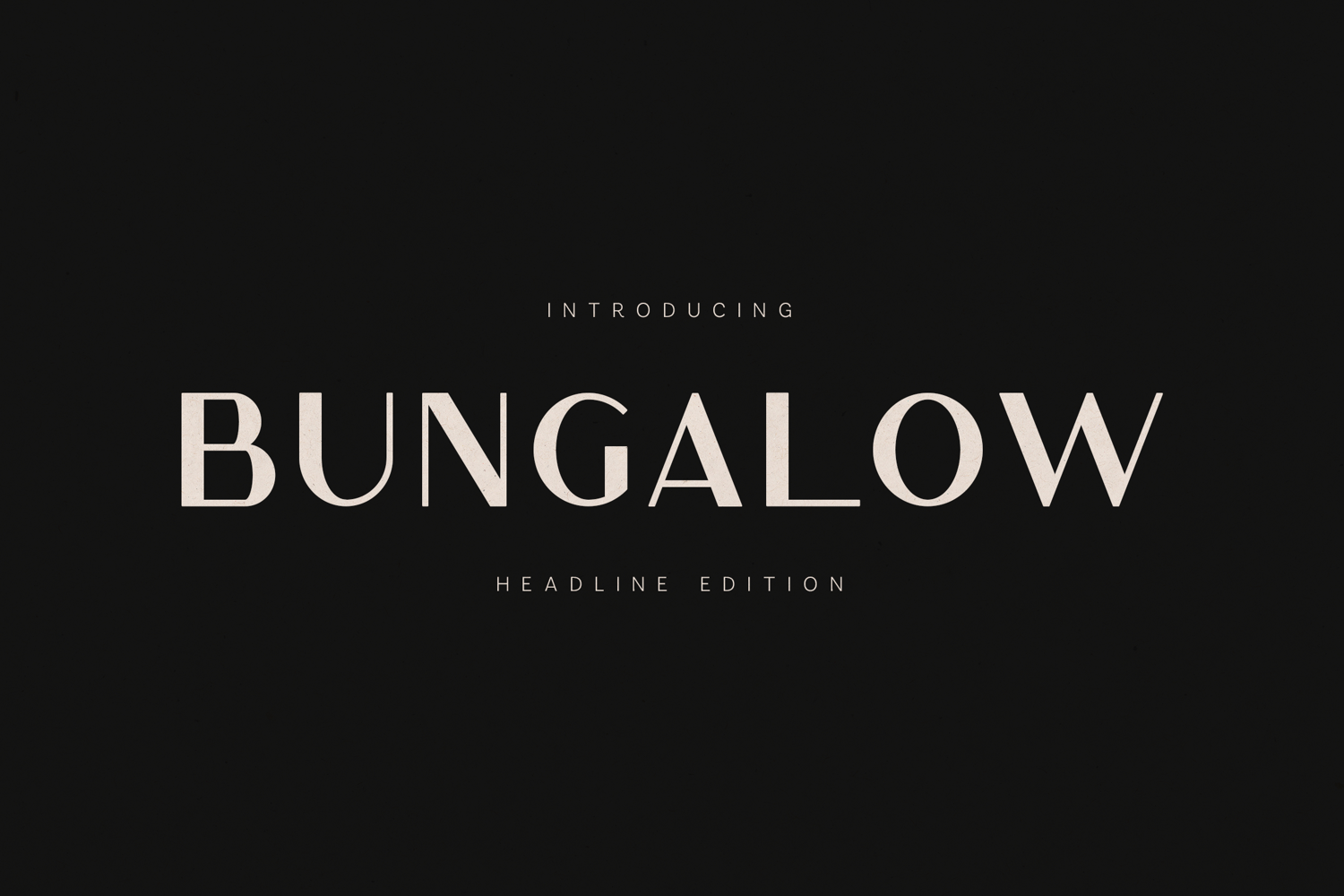
Bungalow Headline Soft Modern Display Font
Bungalow Headline is a soft modern serif font designed for elegant headlines, editorial layouts, and sophisticated branding. Blending classic serif structure with gentle curves and balanced proportions, Bungalow delivers a warm, timeless feel with a contemporary edge.
Ideal for magazines, fashion branding, lifestyle projects, logos, posters, book covers, and premium marketing materials, Bungalow Headline offers strong readability while maintaining a refined, expressive character. Its subtle contrast and smooth rhythm make it especially effective for headline typography and short text compositions.
✦ Perfect For- Editorial & magazine design
- Branding & logo design
- Fashion & lifestyle projects
- Headlines & posters
- Book covers & packaging
- Premium print & digital layouts
- Uppercase & lowercase characters
- Numbers & punctuation
- Symbols
- Multilingual support